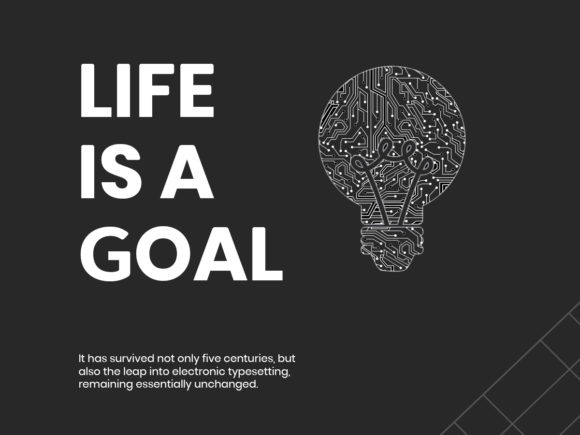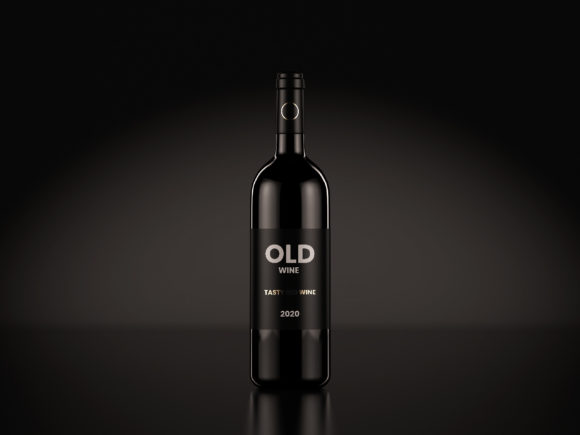
Ament Font: The Ultimate Sans Serif Font for Modern Designers
In the world of typography, a good font can make all the difference in creating a lasting impression. For designers and crafters, finding the perfect font that embodies simplicity, elegance, and versatility can be a daunting task. That’s where Ament Font comes in – a minimal and neat sans serif font that’s suitable for a wide range of design projects. In this article, we’ll dive into the features and benefits of Ament Font, and explore how it can elevate your branding, packaging, and design endeavors.
What is Ament Font?
Ament Font is a modern sans serif font that’s designed to be clean, simple, and highly legible. Its minimalist approach makes it an excellent choice for designers who want to create a subtle yet sophisticated look. The font’s neat and organized structure ensures that it can be used in various design contexts, from branding and packaging to invitations, quotes, and more.
Key Features of Ament Font
- Minimalist design: Ament Font boasts a sleek and minimalist design that’s perfect for creating a modern and sophisticated look.
- Sans serif: The font’s sans serif style ensures that it’s highly legible, even at small sizes.
- Highly versatile: Ament Font can be used in a wide range of design projects, from branding and packaging to invitations, quotes, and more.
- Easily readable: The font’s clean and organized structure makes it easily readable, even for extended periods.
Use Cases for Ament Font
Ament Font is an incredibly versatile font that can be used in various design projects. Here are some use cases where Ament Font shines:
- Branding: Ament Font is perfect for creating a modern and sophisticated brand identity. Its clean design ensures that your brand’s message is conveyed clearly and effectively.
- Product packaging: The font’s minimalist approach makes it an excellent choice for product packaging, where you want to convey a sense of simplicity and elegance.
- Invitations: Ament Font is a great choice for creating formal and informal invitations, from wedding invites to business events.
- Quotes: The font’s clean design makes it perfect for showcasing inspirational quotes, sayings, and phrases.
- T-shirts and apparel: Ament Font is a great choice for designing t-shirts, hoodies, and other apparel, where you want to create a modern and stylish look.
- Labels and posters: The font’s highly legible design makes it suitable for creating labels, posters, and other visual materials.
- Logos: Ament Font can be used to create a modern and sophisticated logo that effectively communicates your brand’s values and mission.
Benefits of Using Ament Font
Using Ament Font in your design projects offers several benefits, including:
- Consistency: Ament Font ensures consistency in your design projects, creating a cohesive look and feel across various materials.
- Legibility: The font’s highly legible design ensures that your message is conveyed clearly and effectively, even at small sizes.
- Flexibility: Ament Font can be used in various design contexts, making it a versatile addition to your font library.
- Modern look: The font’s minimalist design gives your design projects a modern and sophisticated look that’s sure to impress.
Ament Font is a versatile and modern sans serif font that’s perfect for designers and crafters looking to create a sophisticated and elegant look. Its minimalist design, highly legible structure, and versatility make it an excellent choice for various design projects, from branding and packaging to invitations, quotes, and more. With Ament Font, you can elevate your design endeavors and create a lasting impression on your audience.